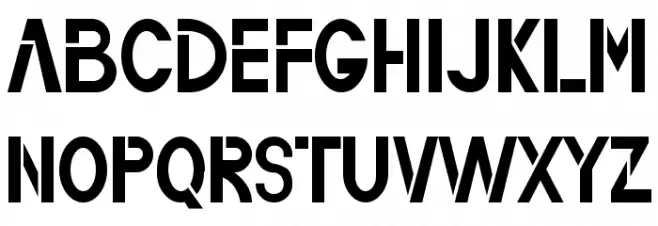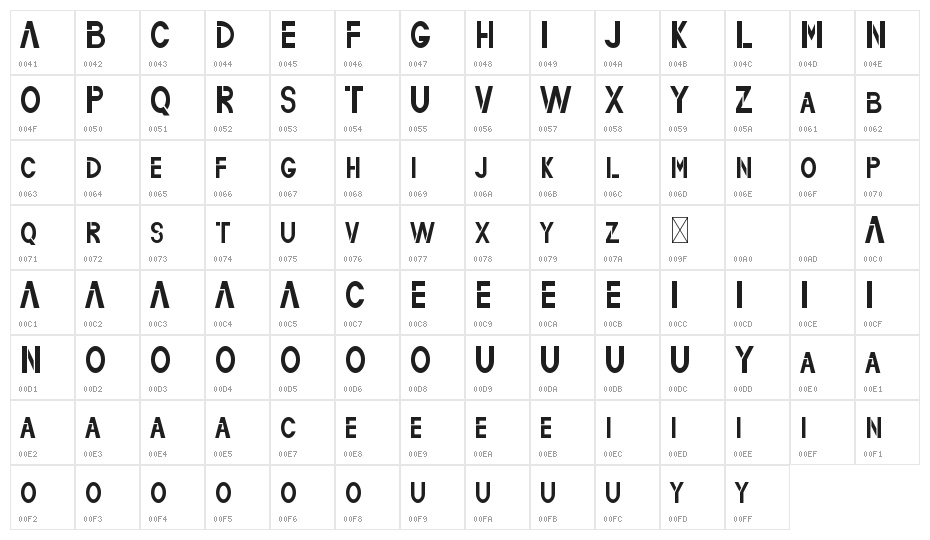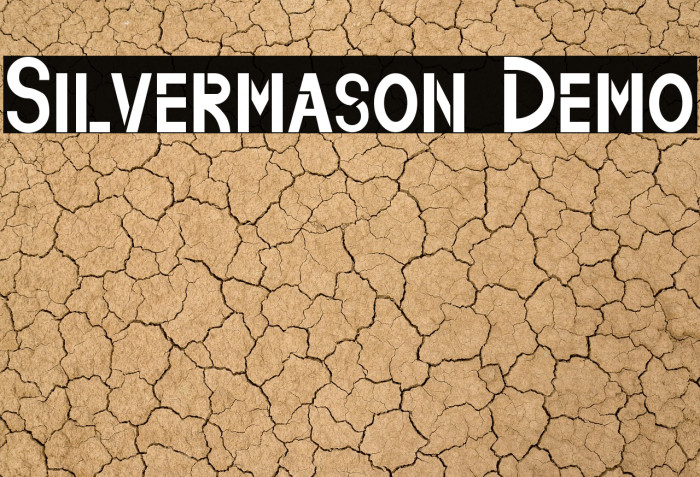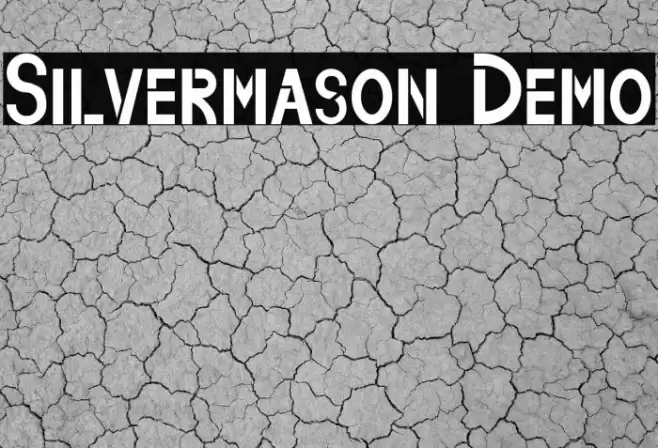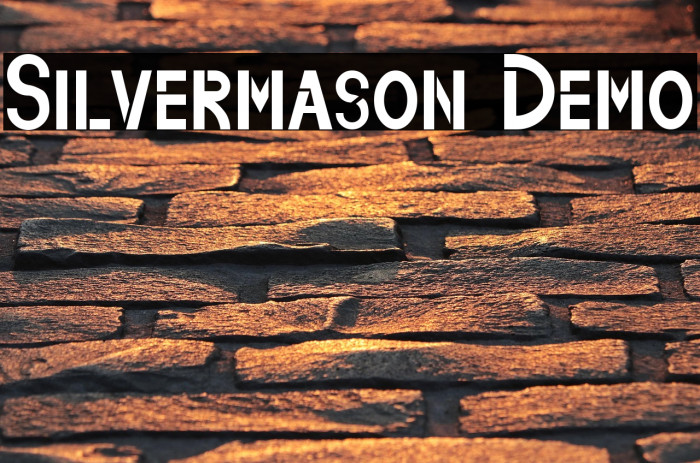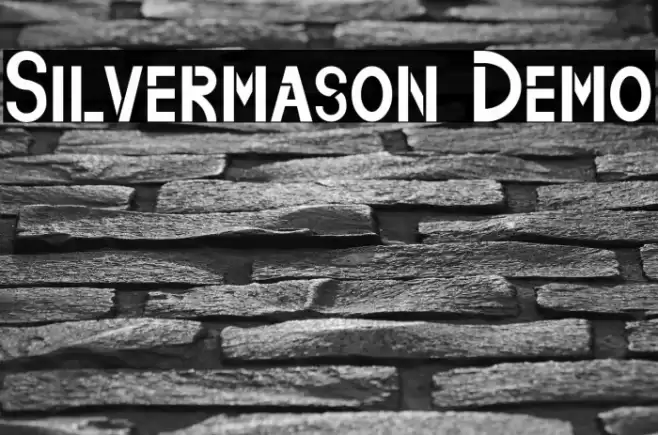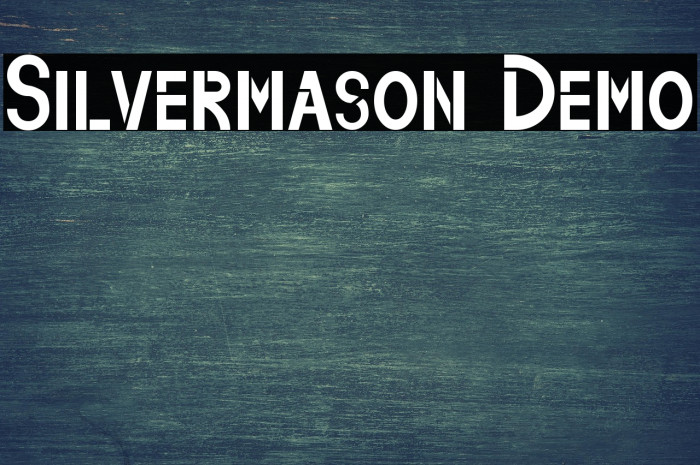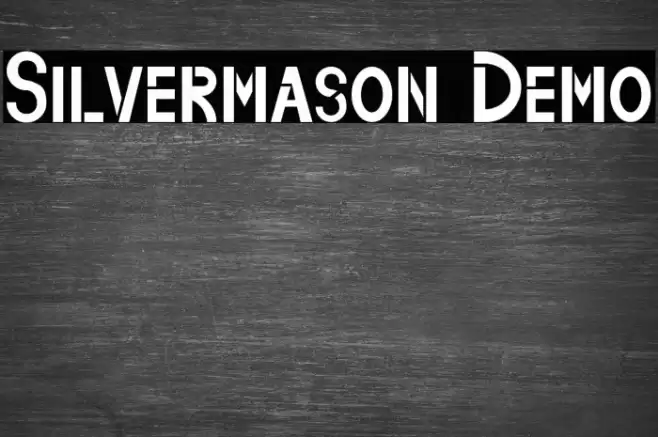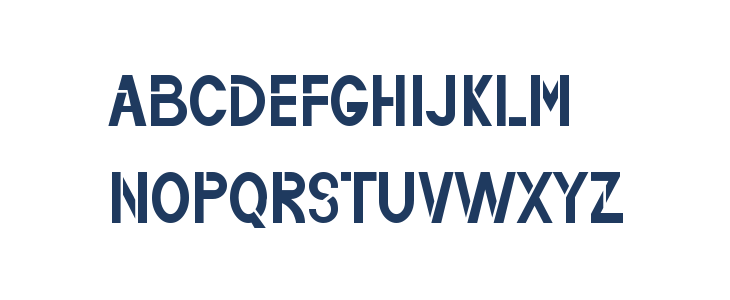
Silvermason Demo Font
Silvermason Demo Description
This font features a bold and geometric design, characterized by its strong, angular lines and sharp edges. The uppercase letters are particularly striking, with a modern and industrial feel that commands attention. The consistent stroke weight across all characters gives it a uniform appearance, while the unique cutouts and angles add a touch of distinctiveness. The font's structure is clean and uncluttered, making it highly legible even at smaller sizes. Its boldness and clarity make it suitable for impactful headlines and branding projects where a contemporary and assertive look is desired.
| Proposed Projects | Ideal for branding, headlines, posters, and any design requiring a strong, modern aesthetic. |